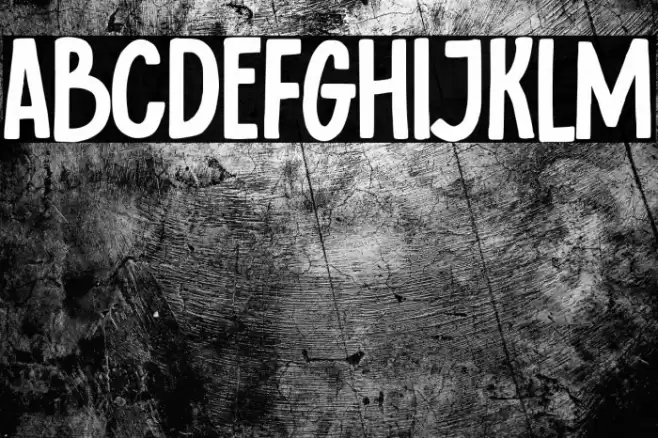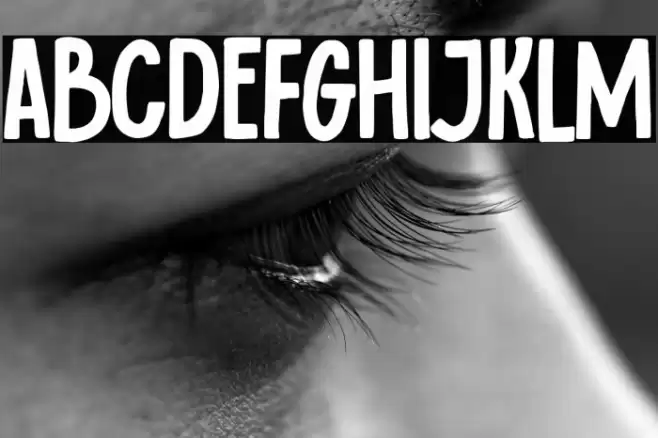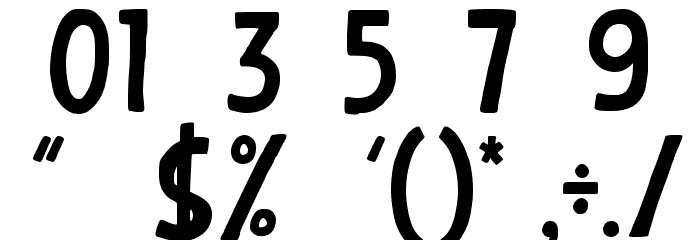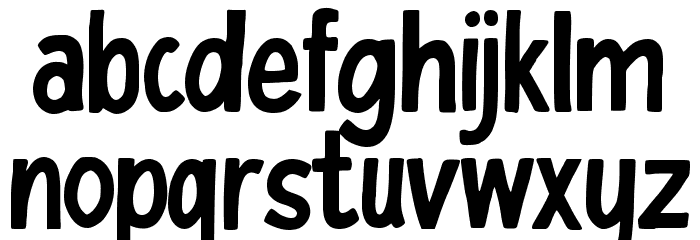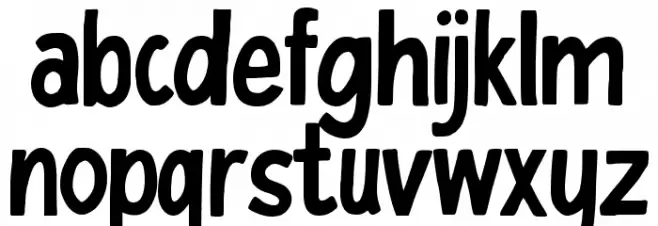
Bad Reason Font
Bad Reason Description
This font features a bold and playful style with a hand-drawn appearance. The characters are slightly irregular, giving it a whimsical and informal feel. The uppercase letters are tall and narrow, while the lowercase letters maintain a consistent height, adding to the font's quirky charm. The numbers and special characters follow the same playful design, making it suitable for creative and fun projects. The strokes are thick and consistent, providing a strong visual impact.
A bold, playful font with a hand-drawn, whimsical style from Uncategorized fonts.
- Font: Bad Reason
- Proposed Projects: Ideal for children's books, playful branding, casual invitations, and creative posters.
- Overall Style: Playful, Whimsical, Informal